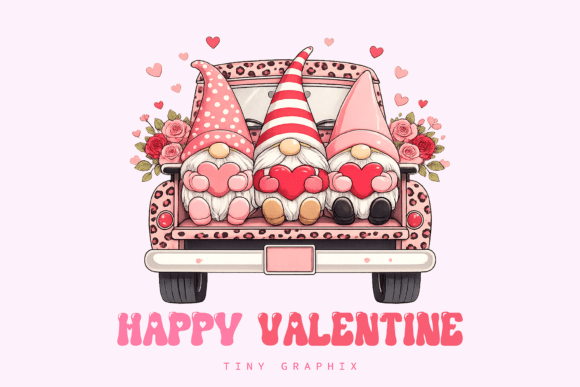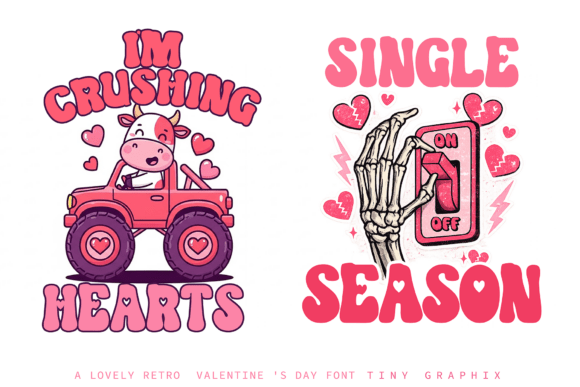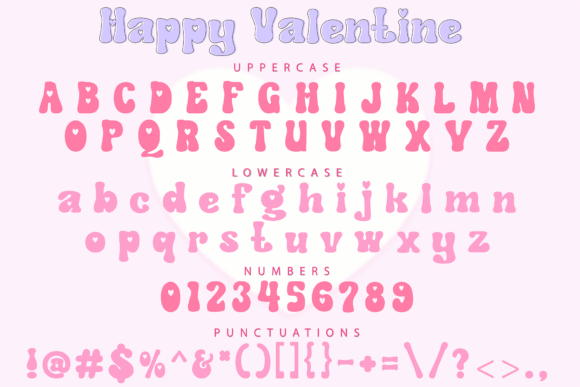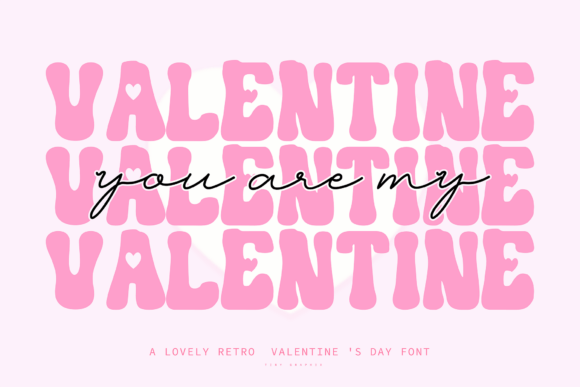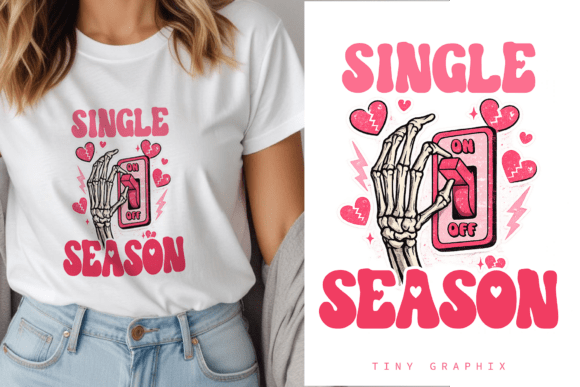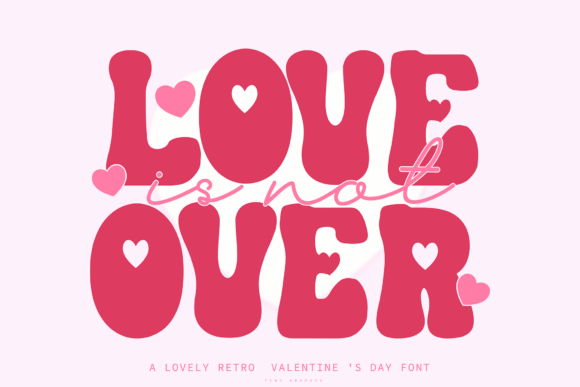
Happy Valentine Font: The Perfect Addition to Your Valentine’s Day Designs 💖
Valentine’s Day is just around the corner, and what better way to celebrate than with a font that’s as sweet as the holiday itself? Introducing the Happy Valentine font, a lovely retro-inspired typeface designed to bring warmth, romance, and playful charm to your designs. In this article, we’ll dive into the features and benefits of this adorable font, and explore how you can use it to create stunning designs for Valentine’s Day and beyond.
A Retro-Inspired Masterpiece
The Happy Valentine font is a masterclass in playful retro design. Its thick, rounded forms and adorable heart cut-outs evoke a sense of nostalgia and whimsy, making it perfectly suited for high-impact headlines, stickers, and any project that requires a “kawaii” or youthful touch. Whether you’re designing for Valentine’s Day or simply want to add a touch of romance to your brand, this font is sure to delight.
Perfect for Crafters and Designers
The Happy Valentine font is a favorite among Cricut and Silhouette crafters, who love using it to create bold statements on t-shirts and greeting cards. Its bubbly personality makes every word feel like a hug, making it the perfect addition to any craft project. Designers will also appreciate the font’s versatility, as it can be used to create a wide range of designs, from digital graphics to print materials.
Pairing Suggestions
To enhance the retro appeal of the Happy Valentine font, try pairing it with vibrant pastel palettes and 70s-inspired wavy patterns. This will give your designs a fun and playful vibe that’s sure to capture the spirit of Valentine’s Day. The font also works beautifully with bold colors and geometric shapes, making it easy to create designs that are both modern and nostalgic.
Beyond Valentine’s Day
While the Happy Valentine font is perfect for Valentine’s Day, it’s also a versatile asset for any brand that wants to communicate friendliness, approachability, and a bit of romantic flair. Its bubbly personality makes it suitable for a wide range of design projects, from social media graphics to packaging and branding. Whether you’re designing for a client or creating materials for your own business, this font is sure to bring a smile to people’s faces.
Inspiration from Retro Valentine Aesthetics
The Happy Valentine font is inspired by retro Valentine aesthetics, which is evident in its playful and charming design. The font’s creator has drawn inspiration from classic Valentine’s Day cards and graphics, reimagining them in a modern and digital context. This makes the font perfect for designers who want to create designs that are both nostalgic and modern.
Digital and Print Friendly
The Happy Valentine font works beautifully for both digital and print designs. Its clear and bold design makes it easy to read, even at small sizes, making it perfect for use in digital graphics, social media posts, and other online materials. It also prints beautifully, making it suitable for use in greeting cards, flyers, and other print materials.
- Retro-inspired design with thick, rounded forms and adorable heart cut-outs
- Perfectly suited for high-impact headlines, stickers, and craft projects
- Versatile asset for any brand that wants to communicate friendliness and approachability
- Works beautifully with vibrant pastel palettes and 70s-inspired wavy patterns
- Suitable for both digital and print designs
| Font Name | Happy Valentine Font |
| Author | TINY GRAPHIX |
The Happy Valentine font is a must-have for designers and crafters who want to create stunning designs for Valentine’s Day and beyond. Its playful and charming design makes it perfect for a wide range of projects, from high-impact headlines to craft projects and digital graphics. With its versatility, bold statement, and bubbly personality, this font is sure to bring warmth and romance to your designs. So why not give it a try and see how it can elevate your designs to the next level? 💖